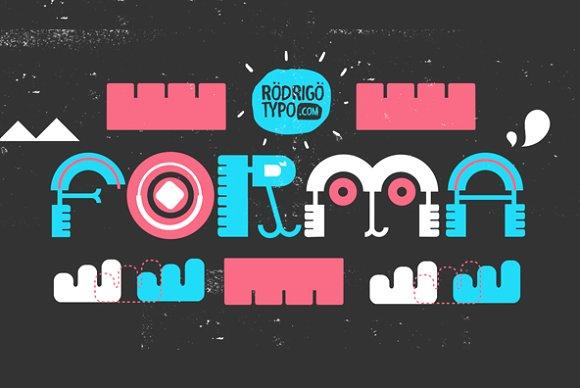
Forma Font Description
Forma is a experimental type from the hand of Rodrigo Araya Salas. The font is based on a mixture of different materials such as plastic, wood, metal and more.
The Forma font family has a regular version as well as 3 variants that can be used to decorate the letters.